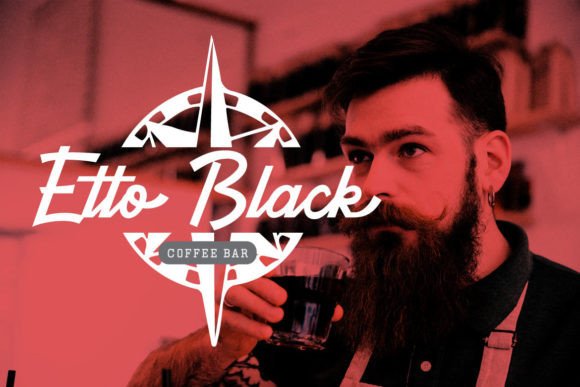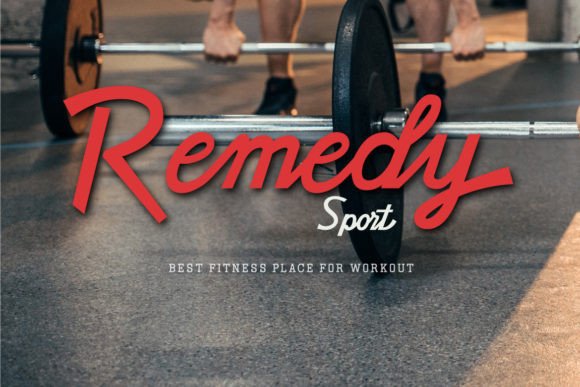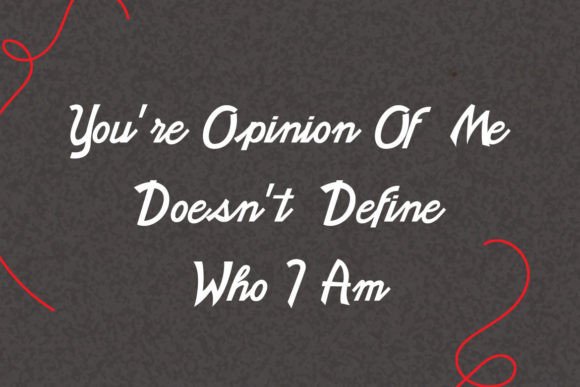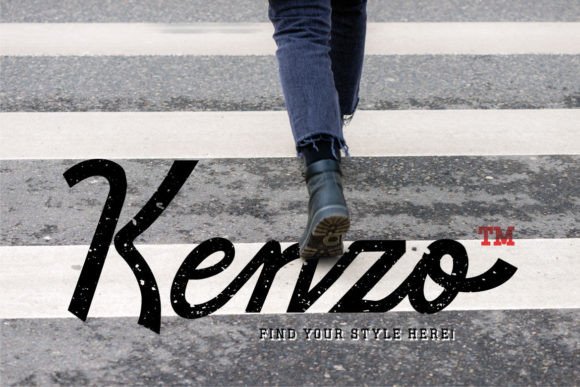
About Hellofix Script Font
Hellofix Script is a retro script font with a classy style but still strong in carrying its stylish character. Hellofix Script is suitable to be used as a logotype for a game, sports brand, book cover, magazine, banner, or even a legend band concert poster.